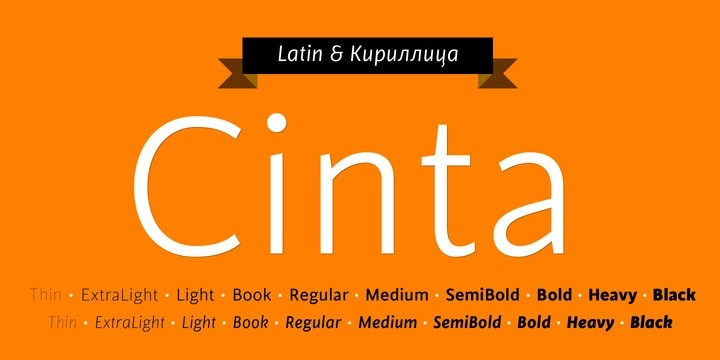
Cinta Font
Cinta Font is perfectly suited for romantic wedding invitations, love-themed greeting cards, intimate restaurant branding, romantic beauty product packaging, heartfelt social media campaigns, Valentine's Day marketing, romantic boutique signage, passionate lifestyle branding, and tender storytelling applications.
What makes Cinta Font so exciting is its passionate elegance and romantic sophistication that captures the universal language of love through every tenderly crafted letterform that speaks directly to the heart. This enchanting typeface embodies the essence of romantic expression with its graceful curves and intimate character shapes that evoke feelings of warmth, affection, and deep emotional connection. The font's loving proportions and gentle styling create an atmosphere of romance and heartfelt sincerity that resonates with audiences seeking authentic emotional experiences and meaningful connections. Cinta Font stands out through its ability to convey love, tenderness, and romantic authenticity, making it perfect for projects that need to establish emotional connections while celebrating the beauty of love, relationships, and heartfelt human experiences that touch the soul.
The Cinta Font family includes Light, Regular, Medium, and Bold weights, each maintaining the font's distinctive romantic character while providing design flexibility for various loving applications. The family also features romantic alternates, heart-inspired elements, and tender decorative touches that enhance the font's passionate appeal and provide comprehensive solutions for emotionally resonant design projects.
When you choose Cinta Font Free Download, you're selecting a typeface that brings authentic romantic emotion and loving sophistication to your creative projects. This font excels in creating designs that need to convey love, emotional depth, and romantic sincerity. Its passionate appearance makes it particularly effective for wedding industry brands, romantic services, and love-focused projects that want to establish emotional connections while celebrating the transformative power of love.
The technical craftsmanship of Cinta Font includes an extensive character set with uppercase and lowercase letters, numerals, punctuation marks, and romantic symbols that maintain the font's loving character. The font has been carefully optimized for both digital and print applications, ensuring consistent performance while preserving the tender details that give it its distinctive romantic character and emotional appeal.
Whether you're designing wedding materials, creating romantic brand identities, developing love-themed marketing campaigns, or crafting designs that need to convey heartfelt emotion and romantic sophistication, Cinta Font delivers the perfect combination of passionate authenticity and contemporary functionality that makes your projects emotionally compelling and romantically memorable for audiences seeking genuine love and meaningful romantic experiences.